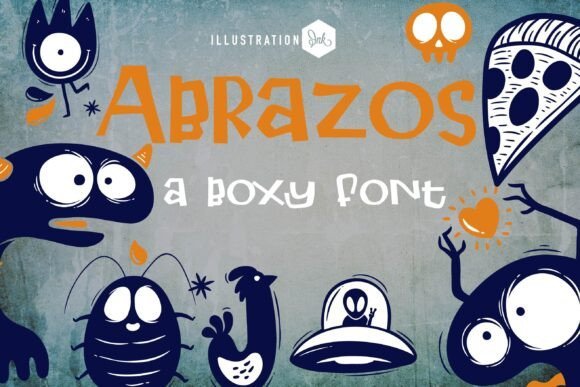
A Creative Spark: Uncovering the Whimsy of Abrazos Font
Have you ever been doodling in a notebook, letting your pen wander across the page as you brainstorm ideas, and suddenly, a quirky character or flourish catches your eye? That’s exactly what happens when you work with the Abrazos Font, a hand-crafted sans serif font that captures the essence of handwritten charm.
Designed to evoke the feeling of a handwritten note, Abrazos Font is perfect for invitations, greeting cards, and other projects where a personal touch is needed. This unique font is not only a valuable addition to any designer’s toolkit but also a reminder that sometimes, the most beautiful creations come from imperfections and impermanence.
Abrazos Font Key Features
- Character Count: The font contains over 500 glyphs, including Latin, Cyrillic, and Greek characters, as well as a range of symbols and punctuation marks.
- Unique Characteristics: Abrazos Font features a distinctive, hand-drawn aesthetic with a mix of rounded and angular shapes, giving it a warm and friendly feel.
Abrazos Font Review
I recently had the chance to dive into the Abrazos Font, and I must say it’s a unique addition to any design project. ✨ The font’s organic, handwritten feel gives it a touch of warmth and personality, making it perfect for branding or editorial content. The subtle flair and dynamic letterforms add visual interest and keep the viewer engaged.
The Abrazos Font also excels in its versatility. ✨ It can be used in a variety of settings, from headings and titles to body text and even social media graphics. The font’s adaptability makes it an excellent choice for designers who need a reliable, all-around font.
While the Abrazos Font has its strengths, there are a few limitations to consider:
- ⚠️ Limited legibility at smaller font sizes – The font’s intricate details may become difficult to read at very small sizes.
- ⚠️ Limited Unicode support – The font may not support all languages or special characters, which could limit its use in certain projects.
Overall, the Abrazos Font is a great choice for designers looking for a unique, handwritten font. While it may have some limitations, its strengths far outweigh its weaknesses. With careful selection and use, the Abrazos Font can add a touch of elegance and sophistication to any design project.
Abrazos Font is particularly useful in Canva for creating eye-catching headlines and titles.
Abrazos Font is particularly useful in Adobe Photoshop and Illustrator for creating custom graphics and illustrations.
Abrazos Font is particularly useful in PowerPoint and Word for creating engaging presentations and documents.
Abrazos Font is particularly useful for creating:
Headlines and titles that stand out
Custom graphics and illustrations
Engaging presentations and documents
For best results, use Abrazos Font in conjunction with other design elements to create a cohesive and visually appealing design.